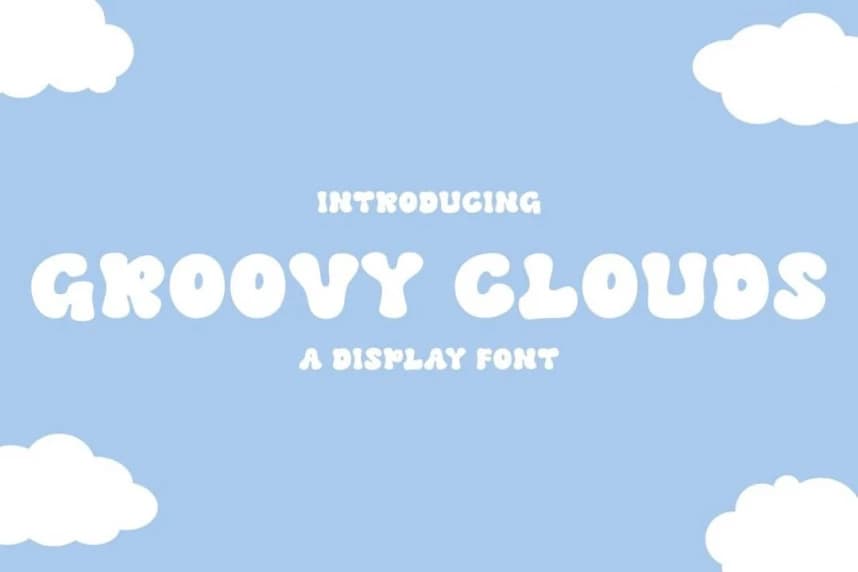
Groovy Clouds Font
Groovy Clouds Font is a bold and playful display font designed by Yesie Erma Yunita, featuring soft, rounded letterforms and a bubbly, full-bodied appearance. Its thick, consistent strokes and smooth curves create a friendly and approachable look